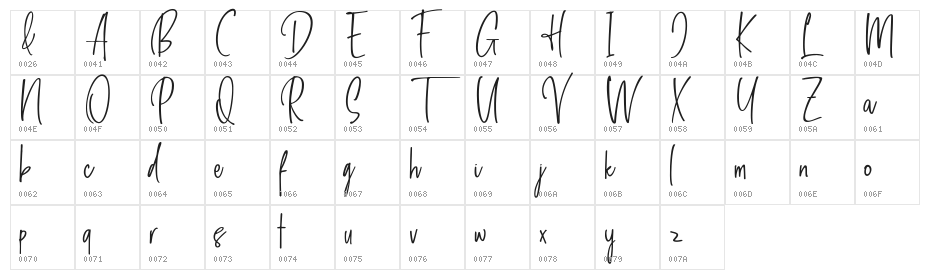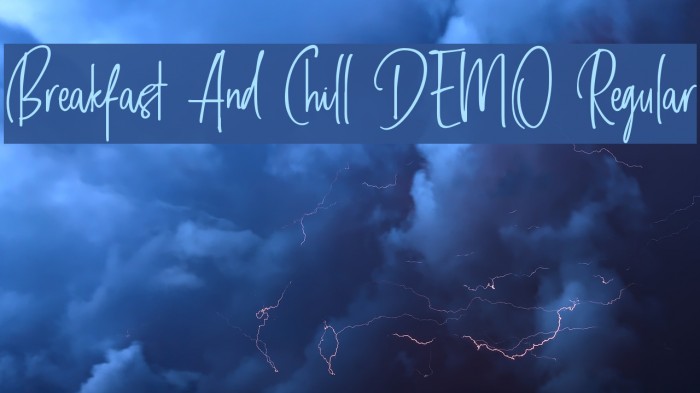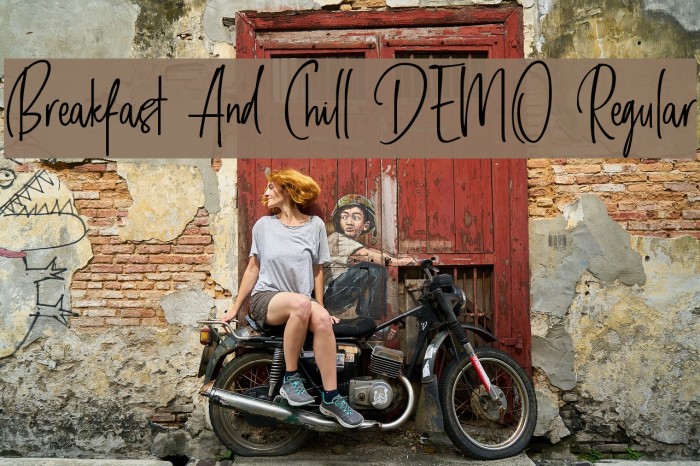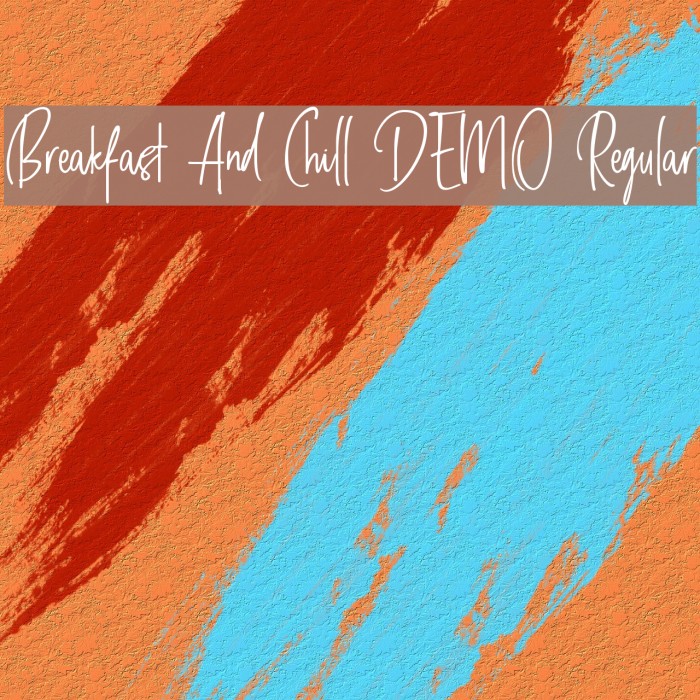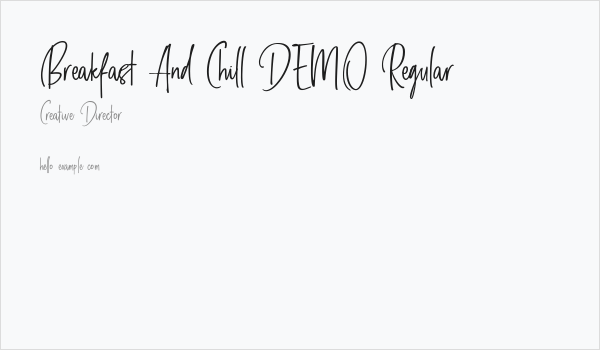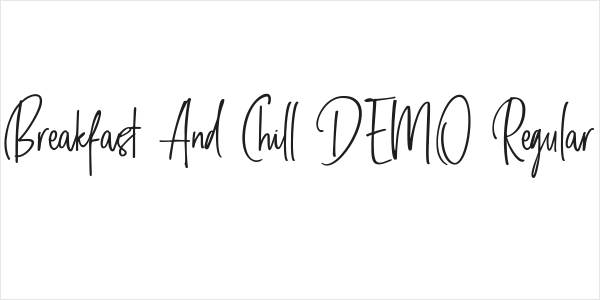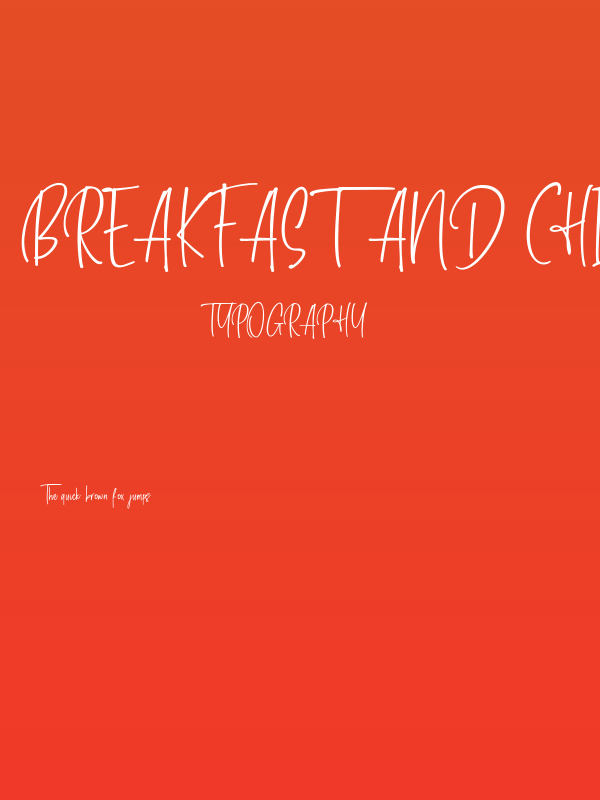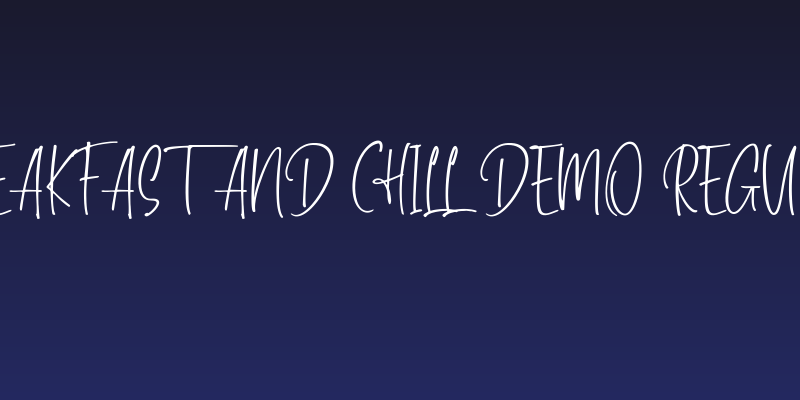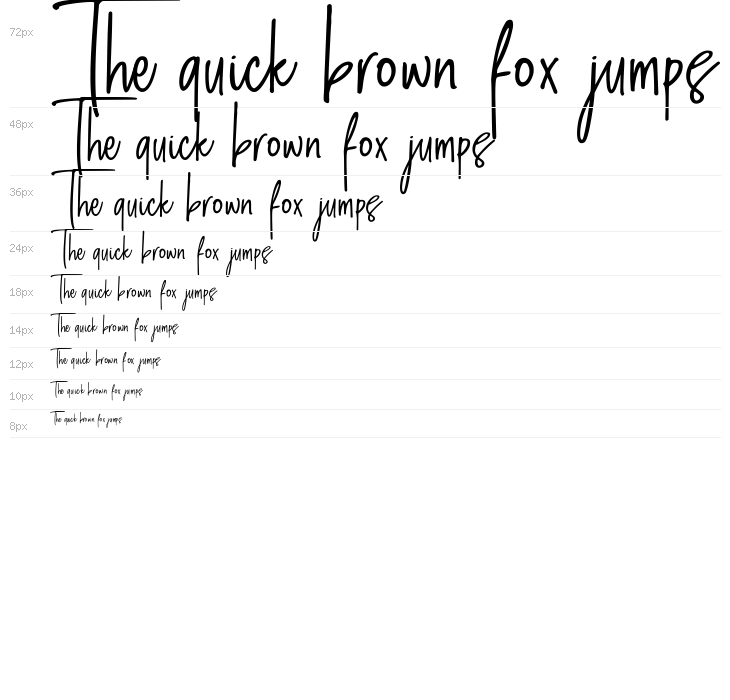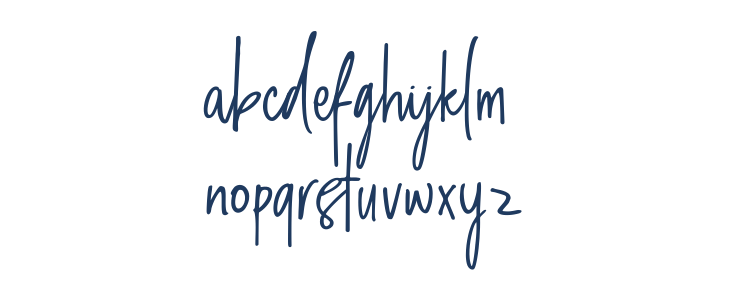
Breakfast And Chill DEMO Regular Font
Breakfast And Chill DEMO Regular Description
This font features a playful and casual handwritten style, characterized by its tall, narrow letterforms and slightly irregular strokes. The uppercase letters exhibit a whimsical flair with varying line thicknesses, while the lowercase letters maintain a consistent flow, enhancing readability. The font's unique charm is evident in its organic curves and loops, making it ideal for creative projects. Its informal yet stylish appearance adds a personal touch to any design, capturing attention with its lively and dynamic presence.